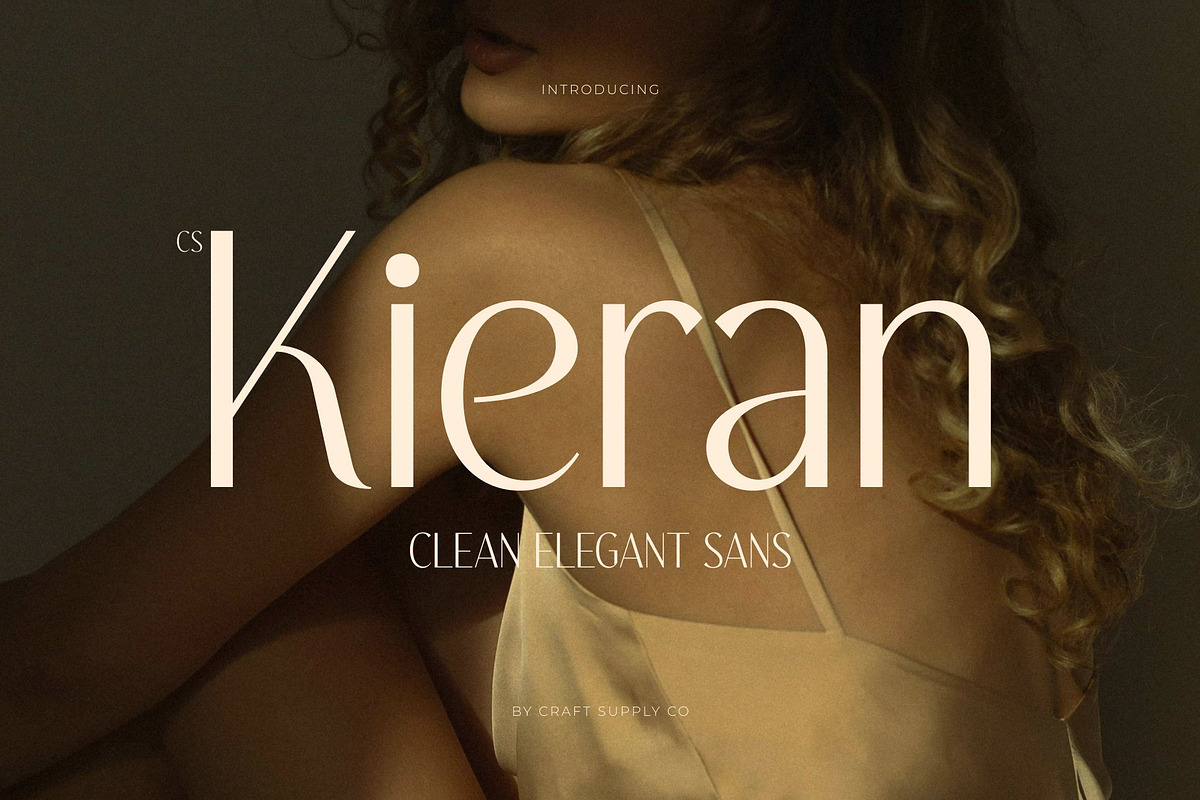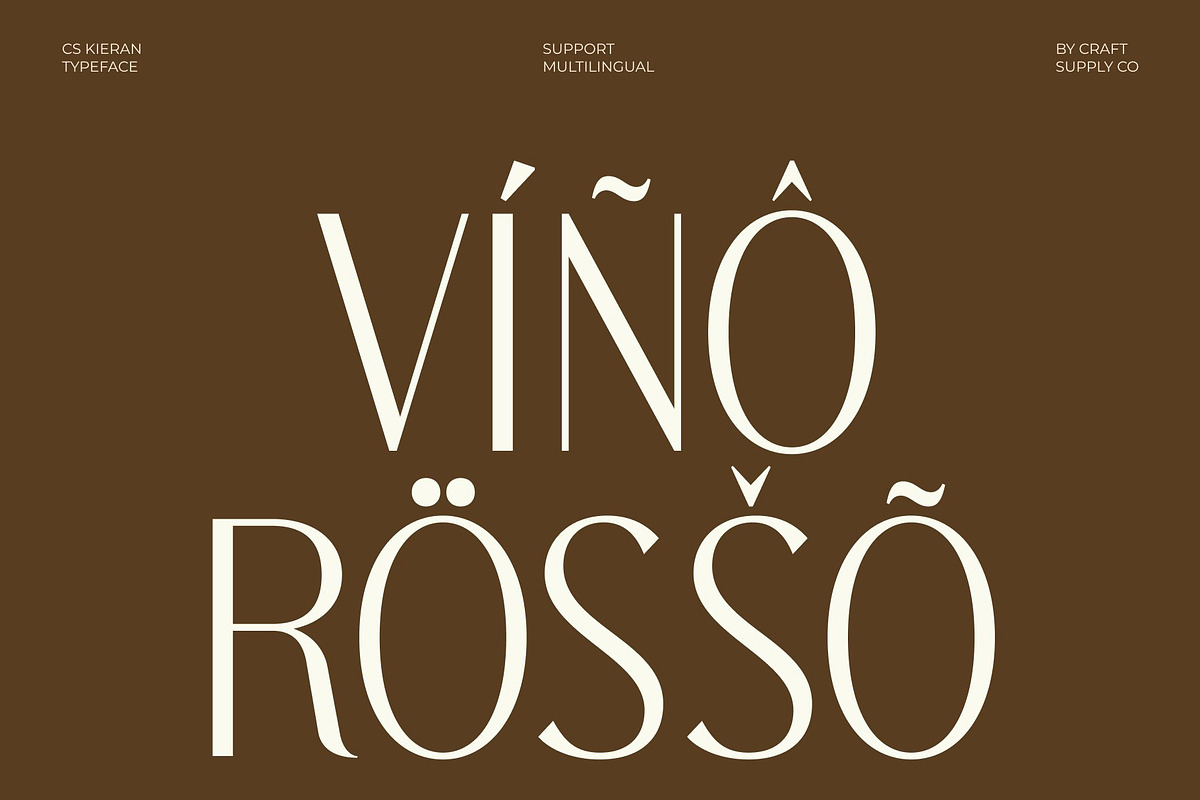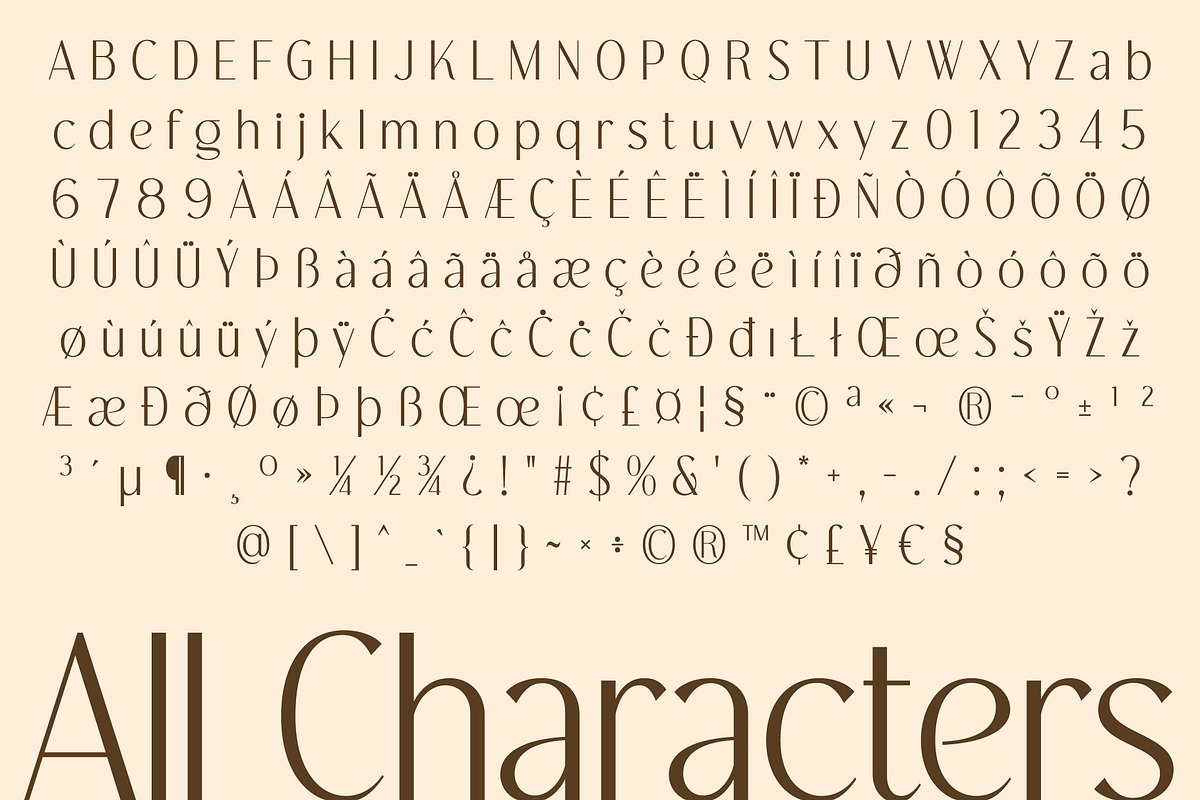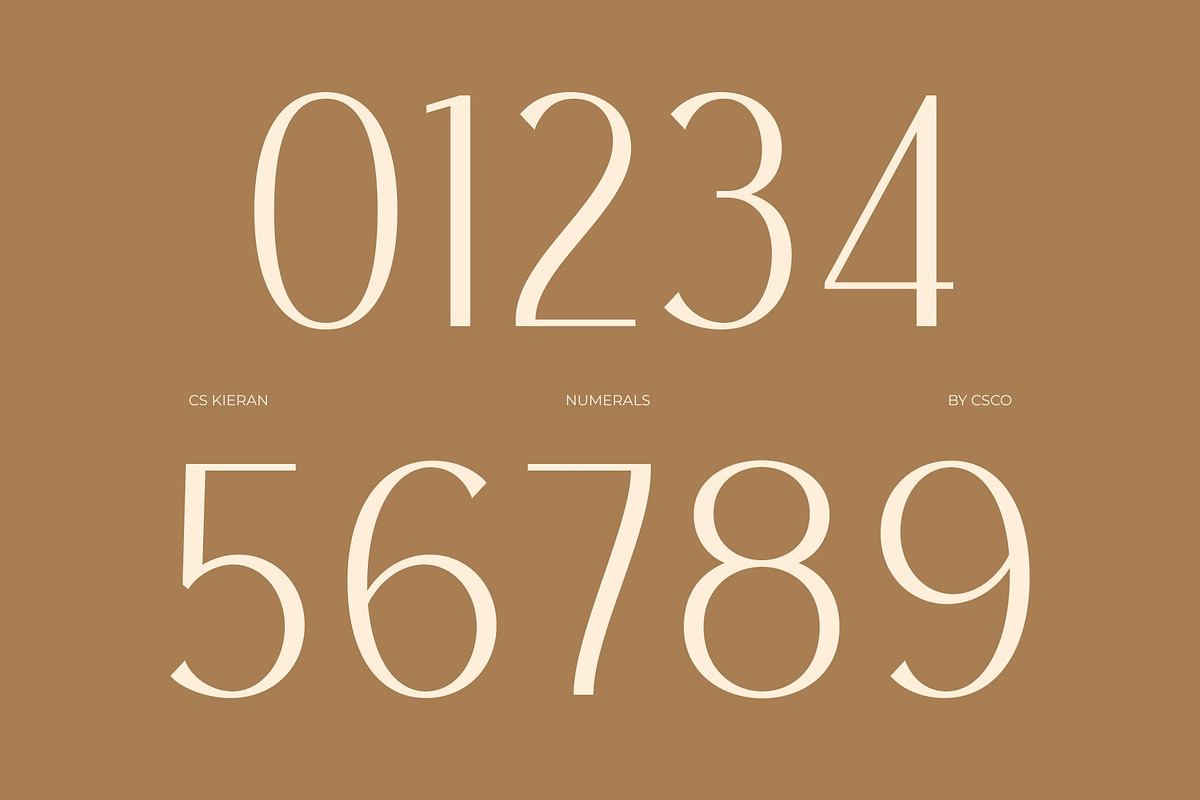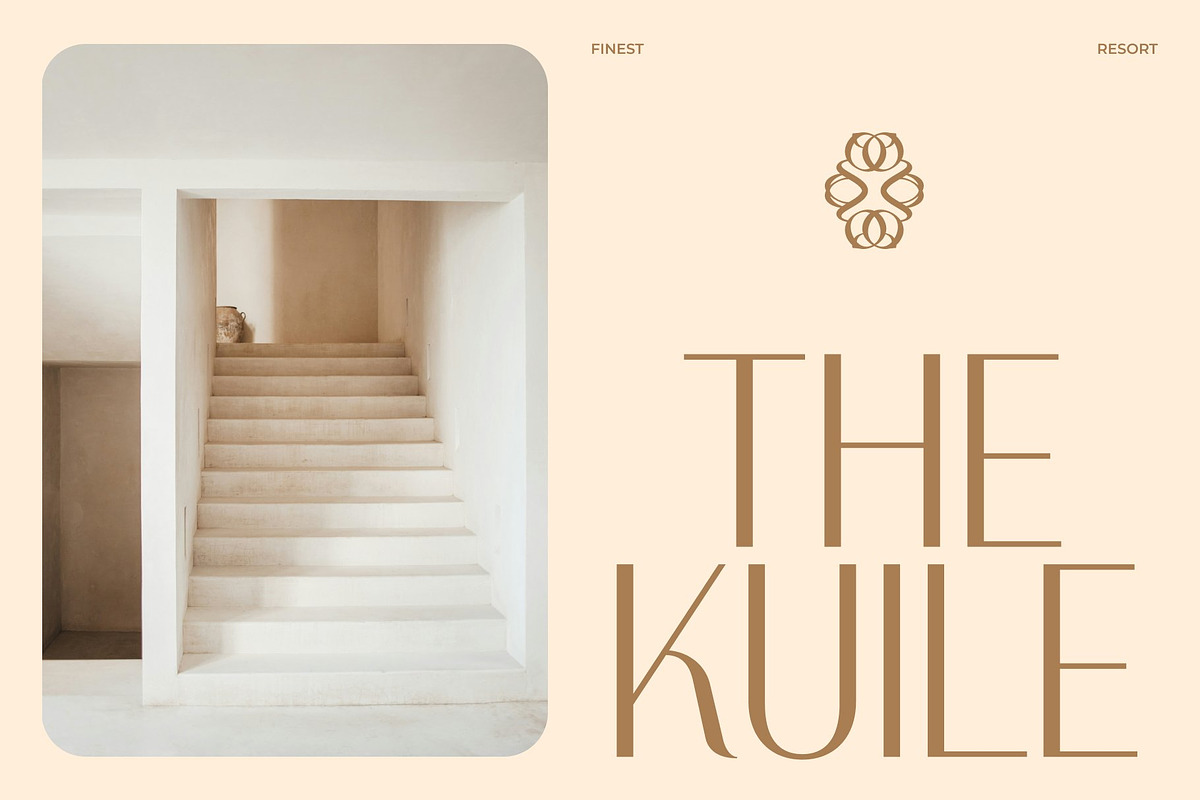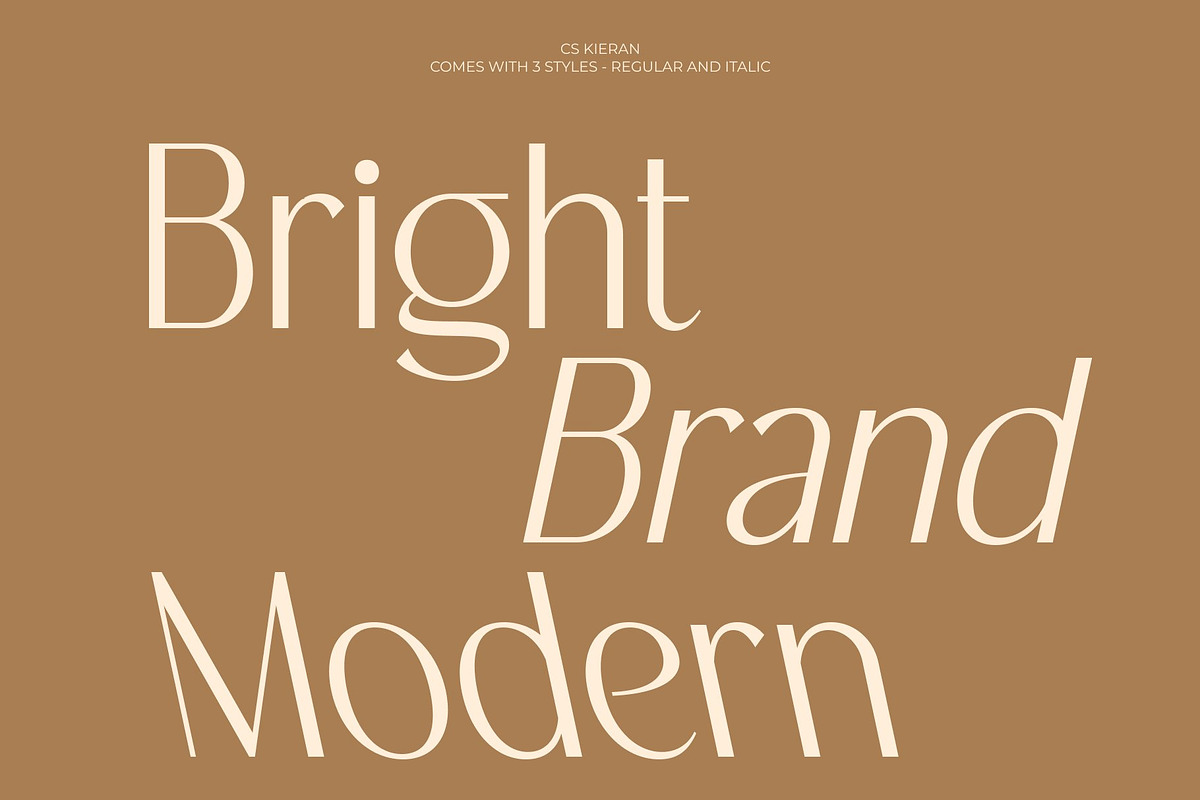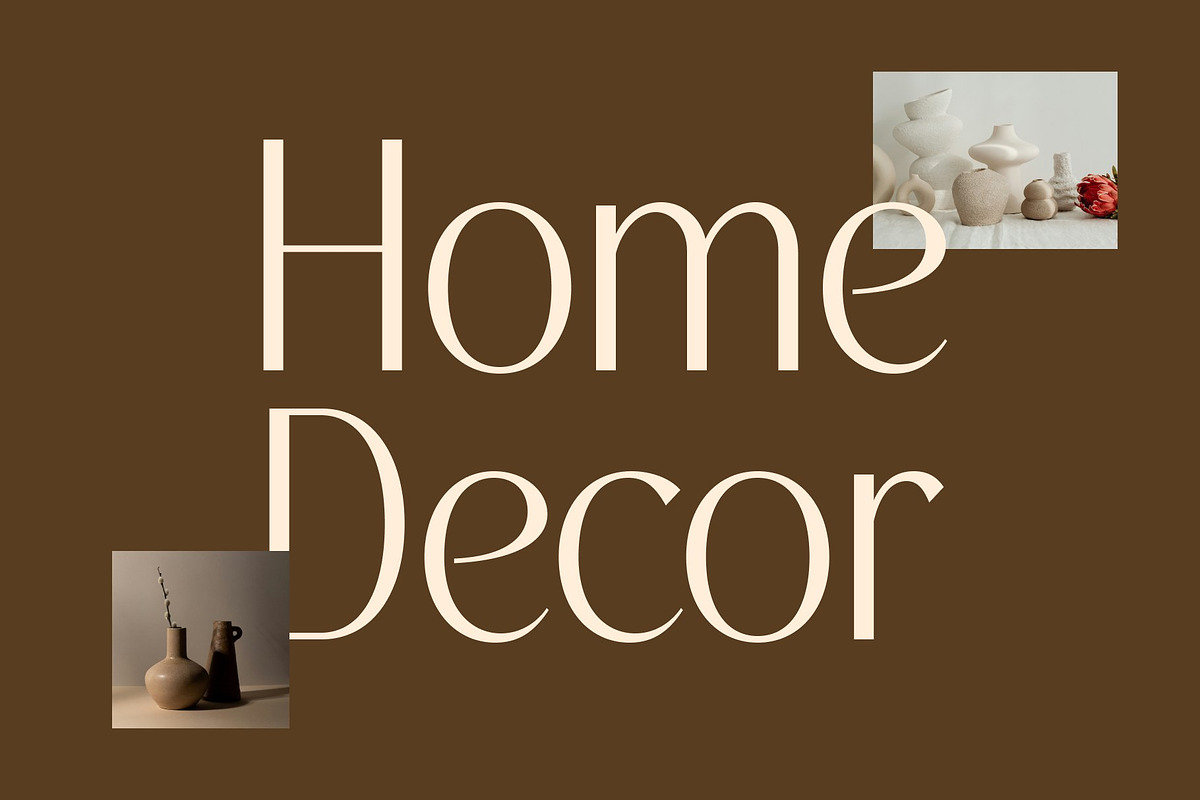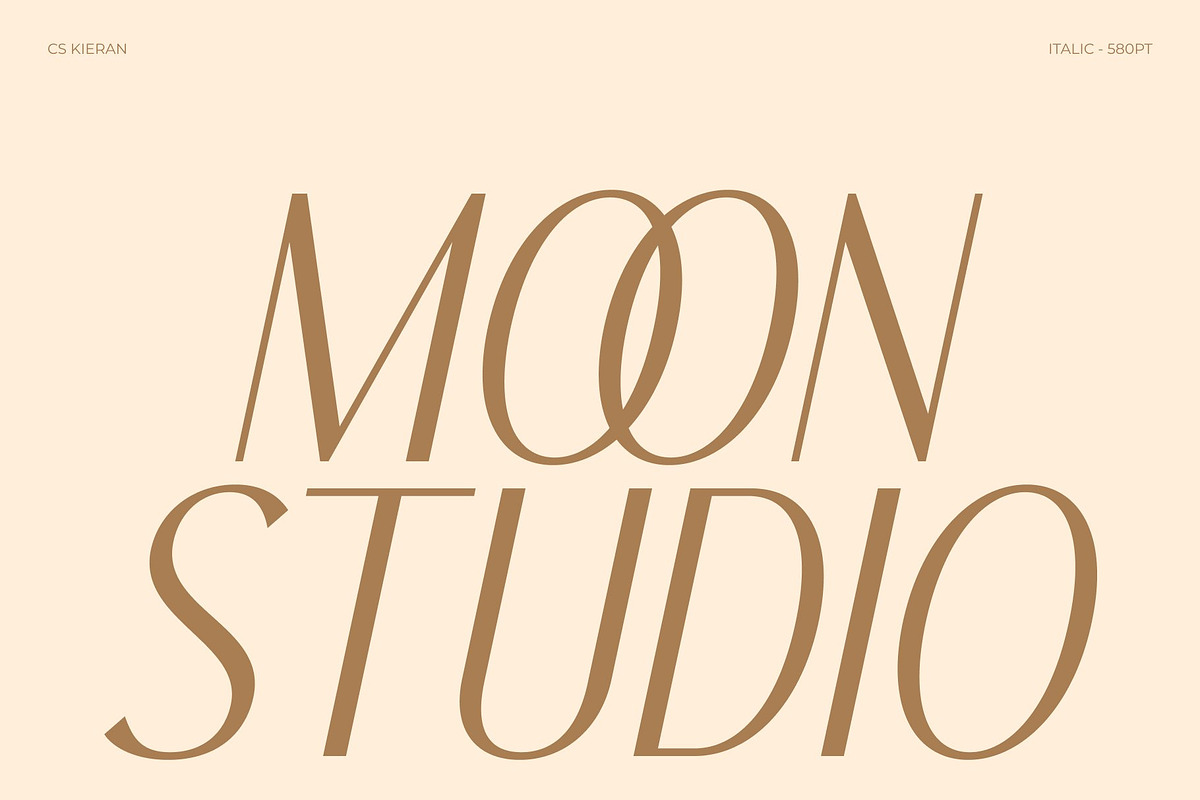
CS Kieran – Modern Sans Serif
CS Kieran – Clean Sans Serif with Minimal Elegance
Clean Sans Serif with Professional Clarity This is a clean and versatile sans serif font designed to deliver strong readability with a refined modern aesthetic. Its balanced proportions and smooth structure create a professional and elegant tone, making it suitable for a wide range of contemporary design applications. It is crafted for designers who value simplicity, clarity, and timeless visual appeal.
Minimal Structure with Elegant Precision The font features minimalistic letterforms that emphasize clarity and visual harmony. Each character is carefully constructed to ensure smooth readability while maintaining a subtle elegance. This restrained design approach allows this font to feel modern, polished, and effortlessly sophisticated.
Versatile Style for Professional Use This font adapts seamlessly across different design contexts thanks to its clean and neutral personality. Whether used in bold headlines or refined text layouts, it maintains consistency and balance, making it a reliable choice for both digital and print environments.
Perfect for Editorials, Logos, and Branding Systems From editorial layouts and logo design to complete branding systems, this font provides a versatile typographic foundation. Its combination of elegance, minimalism, and professional readability ensures your designs feel modern, structured, and visually compelling.